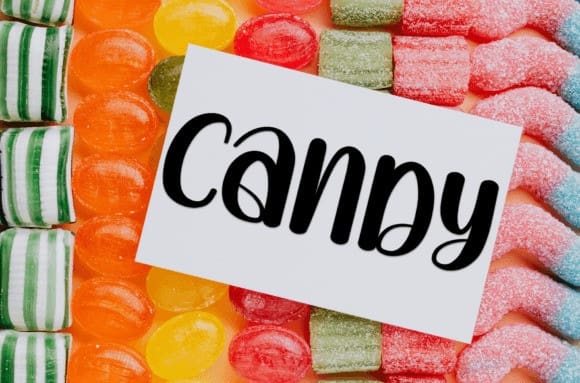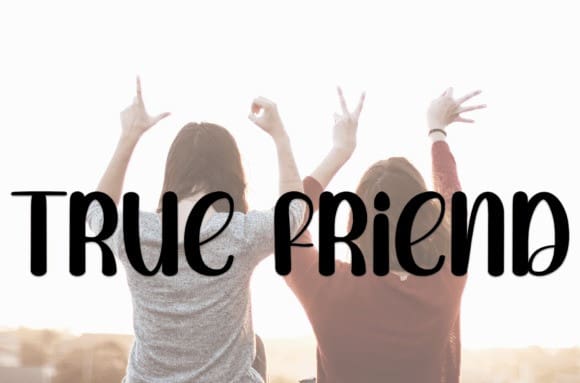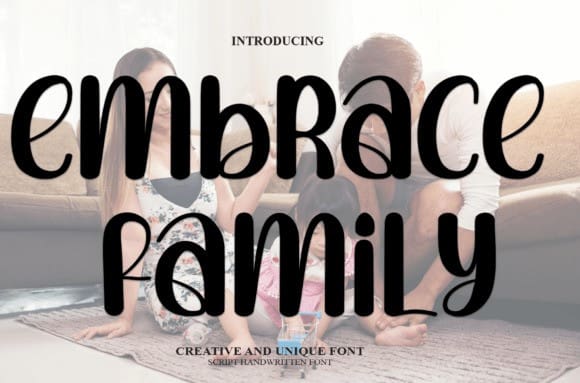
Embrace Family Font
Embrace Family Font is a sweet and friendly handwritten font. Cute and fun, this font is ideal for writing wedding invitations, cards, or any other design that might need a fun touch!